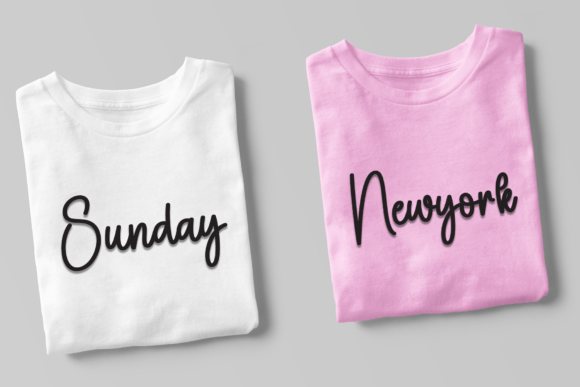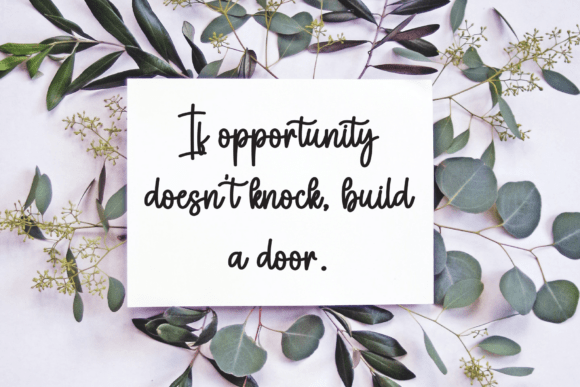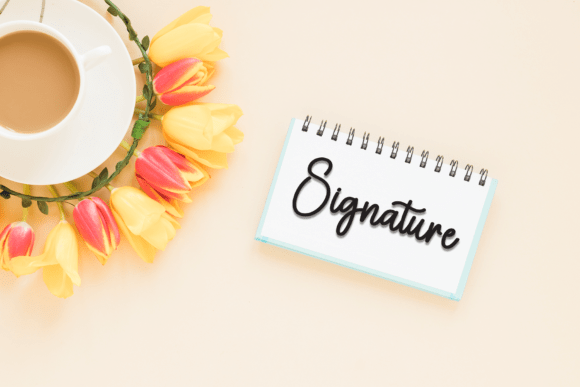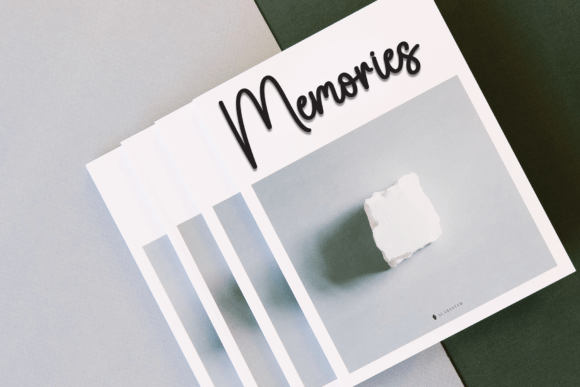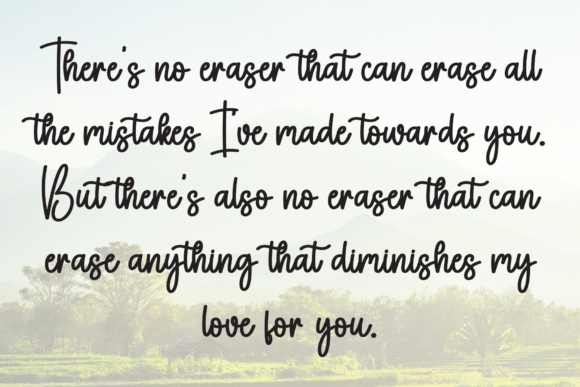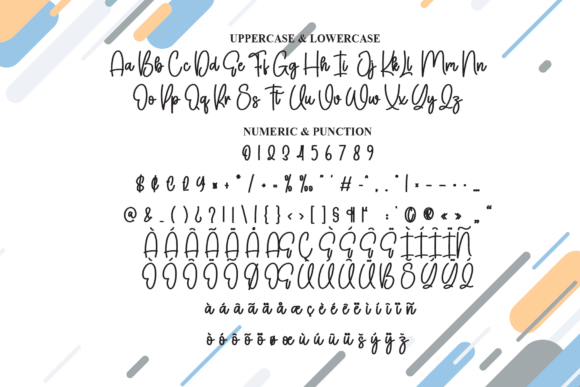
Introducing Backline Font: Elevate Your Designs with Elegance and Sophistication
In the world of typography, a well-crafted font can make all the difference in transforming a design from ordinary to extraordinary. For designers and crafters seeking to add a touch of elegance and contemporary charm to their projects, Backline Font is an exceptional choice. This stylish script font is meticulously designed to bring a refined and sophisticated aesthetic to various applications, including logos, invitations, packaging, and social media graphics.
The Beauty of Backline Font
Backline Font boasts graceful strokes, fluid curves, and carefully crafted letterforms that capture the essence of hand-drawn calligraphy with a modern twist. The font’s natural flow and polished details make it an excellent addition to any design, providing both versatility and visual appeal. Whether you’re working on a luxury brand logo, a wedding invitation, or a product package, Backline Font is sure to elevate your design to new heights.
Key Features of Backline Font
- Elegant and Contemporary Design: Backline Font features a stylish script design that exudes elegance and sophistication, making it perfect for designs that require a refined touch.
- Graceful Strokes and Fluid Curves: The font’s carefully crafted letterforms and fluid curves create a natural flow that mimics hand-drawn calligraphy.
- Versatility: Backline Font is suitable for a wide range of applications, including logos, invitations, packaging, and social media graphics.
- Polished Details: The font’s polished details ensure that it looks great in both digital and print formats.
Uses of Backline Font
Backline Font is an incredibly versatile font that can be used in various design projects. Here are some of the most popular uses of this elegant font:
- Logo Design: Create a lasting impression with a custom logo that features Backline Font, perfect for luxury brands, beauty products, and high-end services.
- Invitations and Stationery: Add a touch of elegance to your wedding invitations, event flyers, and stationery with Backline Font.
- Packaging Design: Elevate your product packaging with Backline Font, ideal for luxury food, cosmetics, and fashion brands.
- Social Media Graphics: Create engaging social media graphics, such as quotes, promotions, and announcements, with Backline Font.
Tips for Using Backline Font
To get the most out of Backline Font, here are some tips to keep in mind:
- Pair with Simple Fonts: Pair Backline Font with simple fonts to create a striking contrast and make your design stand out.
- Use for Headings and Titles: Use Backline Font for headings and titles to add a touch of elegance and sophistication to your design.
- Experiment with Colors: Experiment with different colors to find the perfect match for your design and brand.